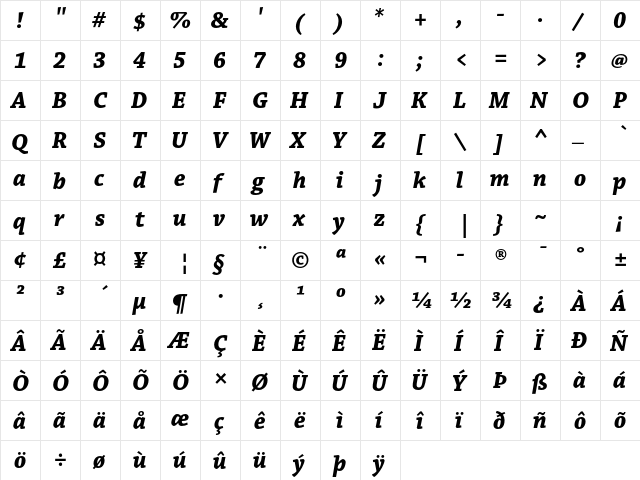
Chaparral Pro Bold Italic Caption Font Preview
| Designer | Carol Twombly |
Design Context for Chaparral Pro Typeface
Chaparral Pro takes a measured approach to typography — its balanced proportions and neutral character make it a reliable workhorse for both digital and print work. Its italic angle brings a sense of urgency and motion to the letterforms. The heavy weight commands attention and anchors typographic hierarchies.
Pro Tip: Try Chaparral Pro for annotation and caption copy alongside an upright companion — the contrast in angle creates a dynamic but ordered typographic system.